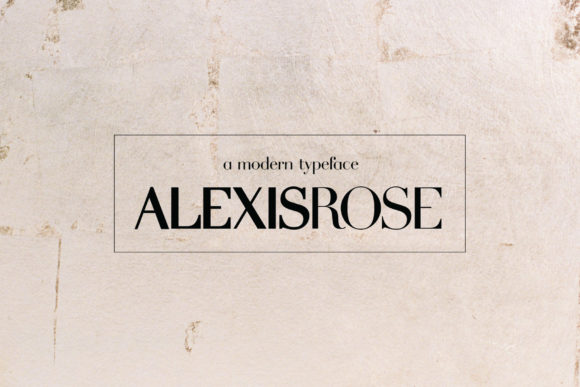
The Elegance of Alexis Rose Font: A Designer’s New Best Friend
I still remember the design project that led me to discover the Alexis Rose font. I was working on a branding project for a luxury fashion client, and I was struggling to find the perfect serif font that exuded elegance and sophistication. The client was particular about the font, and I had to ensure that it aligned with their high-end brand image. After hours of searching, I stumbled upon Alexis Rose, and it was love at first sight. The font’s assertive and authentic serif style instantly resonated with me, and I knew I had found the perfect fit.
An Honest Review of Alexis Rose Font
What I Love About Alexis Rose
- ✨ Elegant and sophisticated design that instantly elevates any project
- ✅ Assertive and authentic serif style that adds a touch of luxury
- 💯 Highly legible, even at small font sizes
- 🎨 Versatile and works well for both digital and print projects
While Alexis Rose is an excellent font, it’s not without its quirks. For instance:
- 🤔 The font may not be the best choice for body text, as it can be a bit too ornate for long blocks of text.
- ⚠️ Some users may find the font’s assertive style too bold for certain projects.
The Backstory of Alexis Rose Font
Alexis Rose was designed by a team of typographers who aimed to create a font that exudes elegance and sophistication. The font’s design inspiration comes from classic serif fonts, but with a modern twist. The team wanted to create a font that would be perfect for luxury brands, high-end designs, and creative projects.
Q: What is the best use case for Alexis Rose font?
A: Alexis Rose is perfect for luxury brands, high-end designs, and creative projects that require an elegant and sophisticated font.
Q: Can I use Alexis Rose for body text?
A: While Alexis Rose is a beautiful font, it may not be the best choice for body text. It’s better suited for headlines, titles, and short-form content.